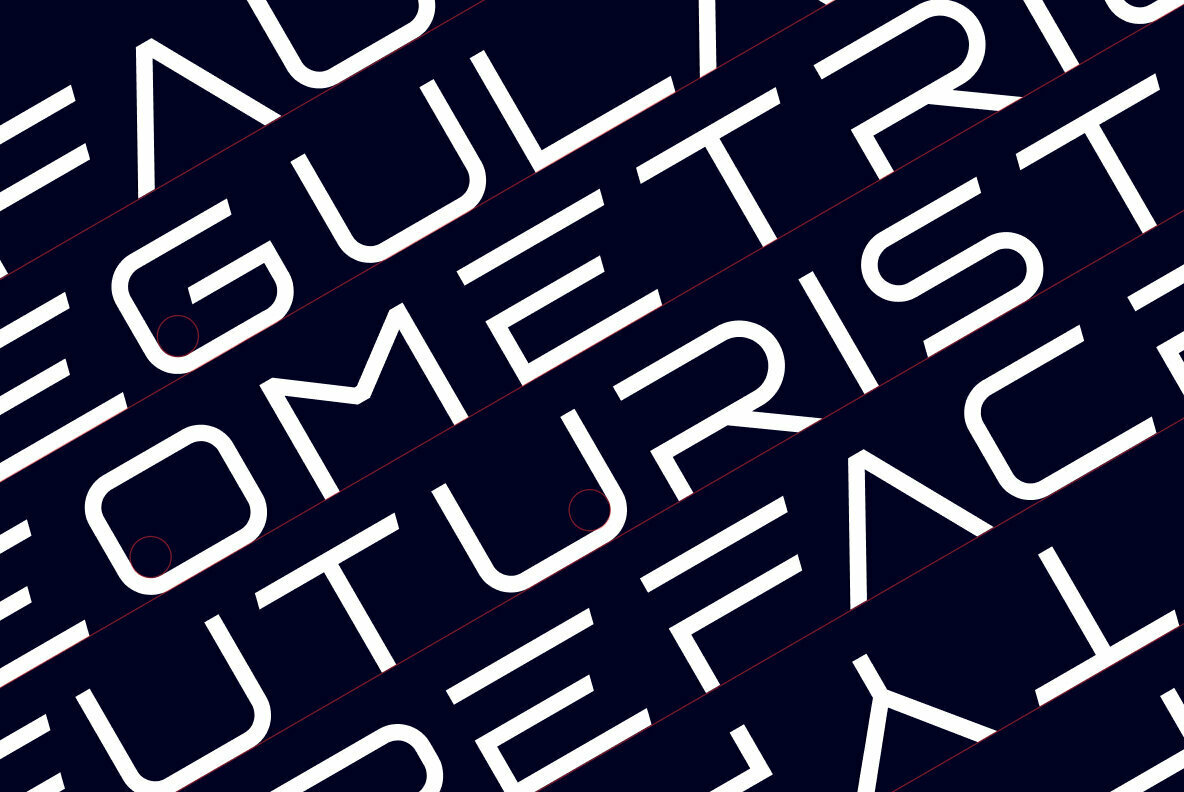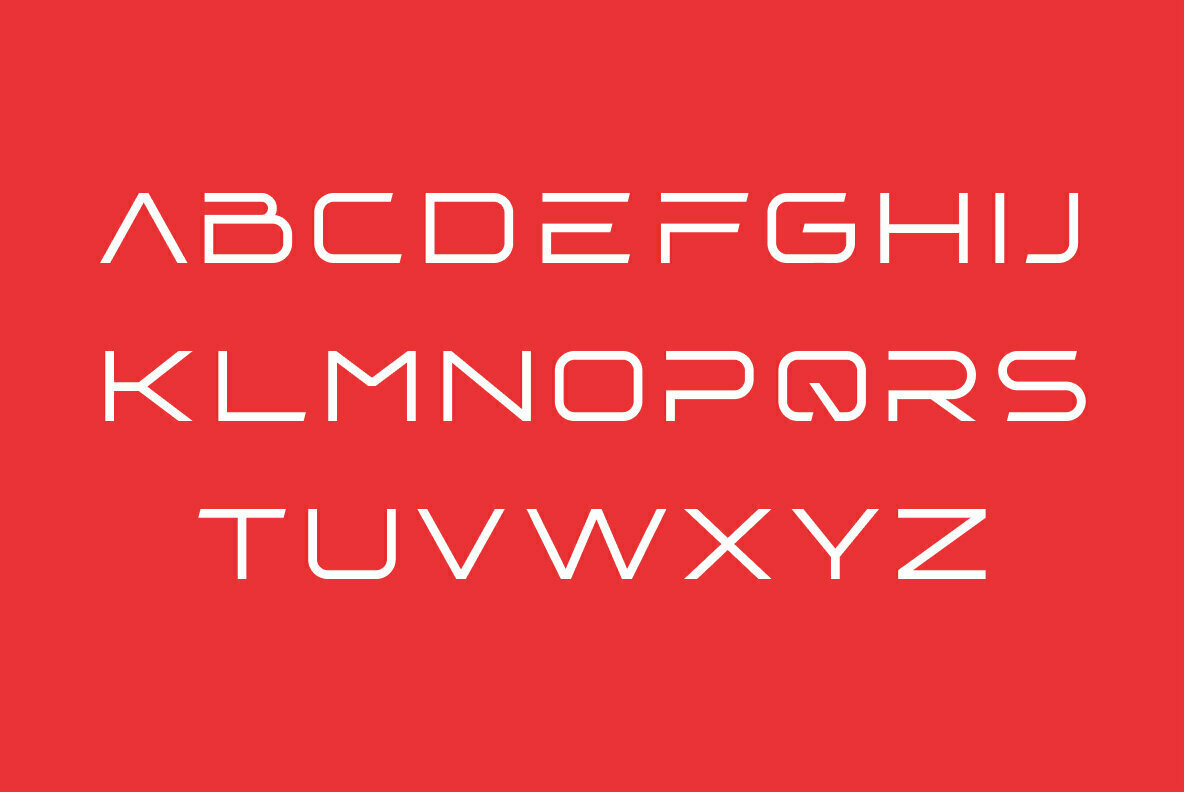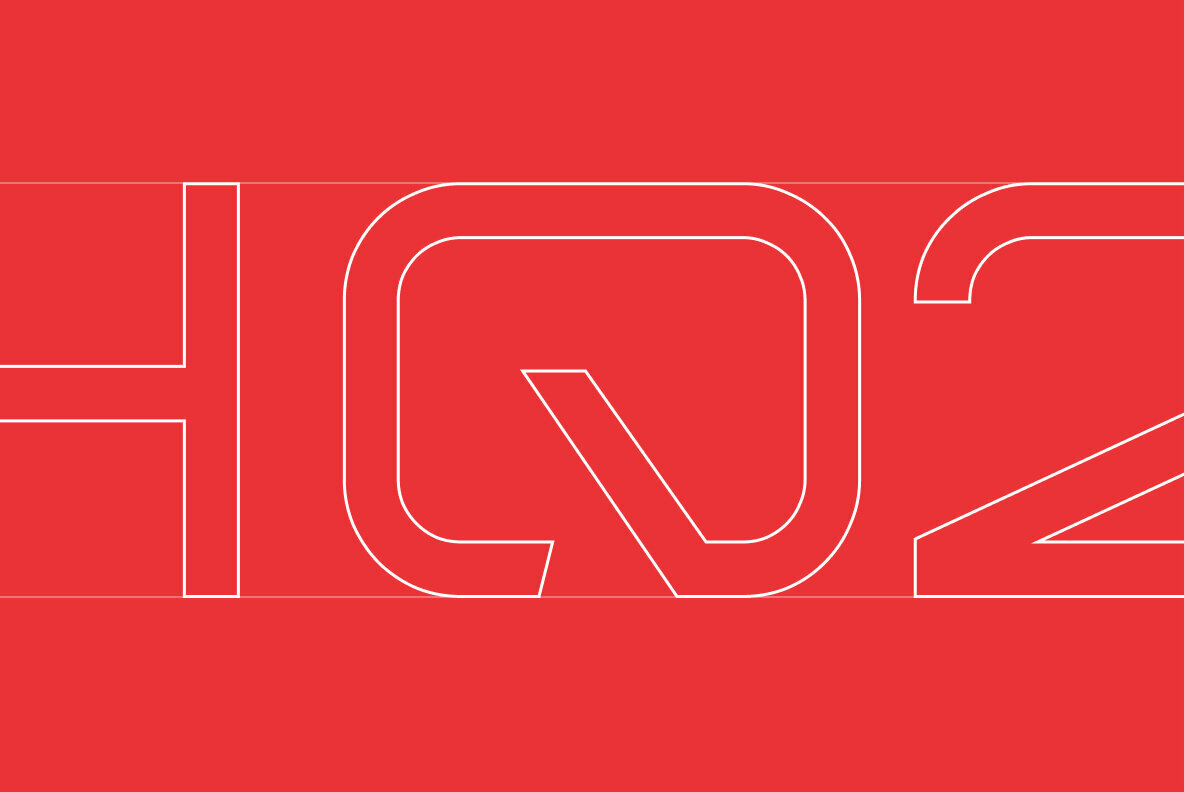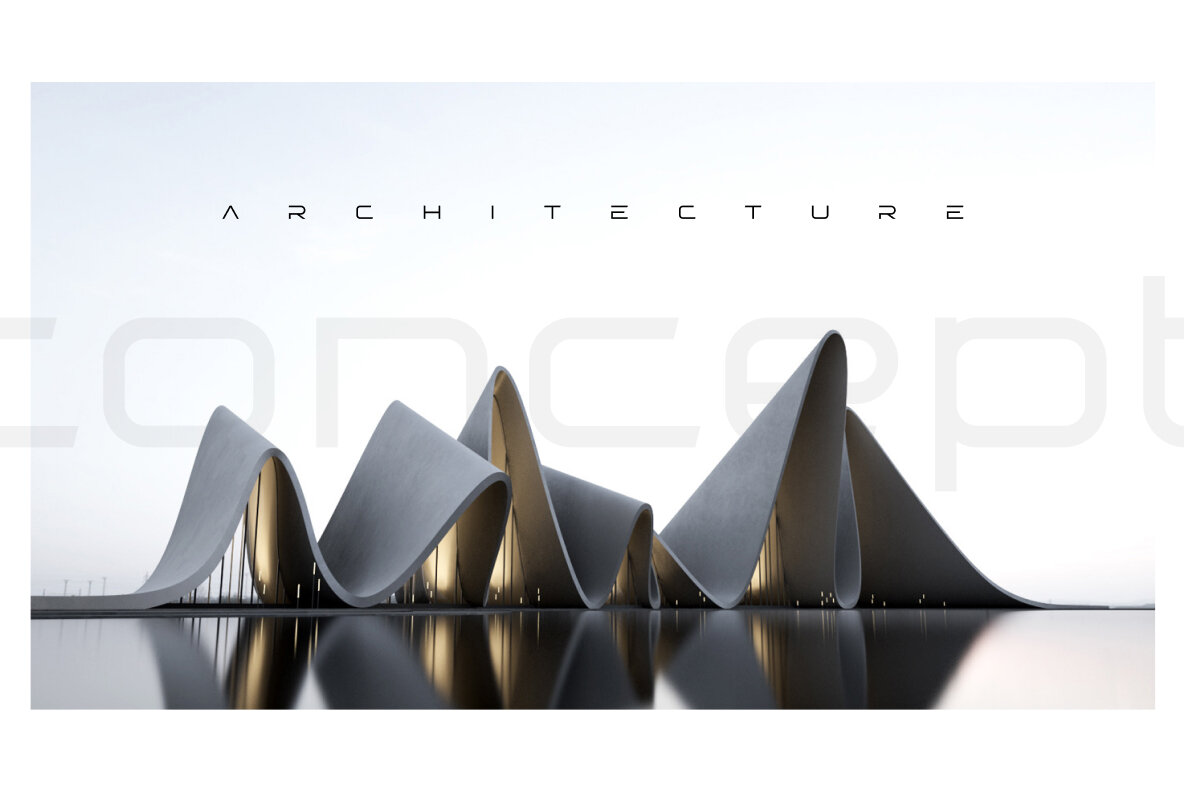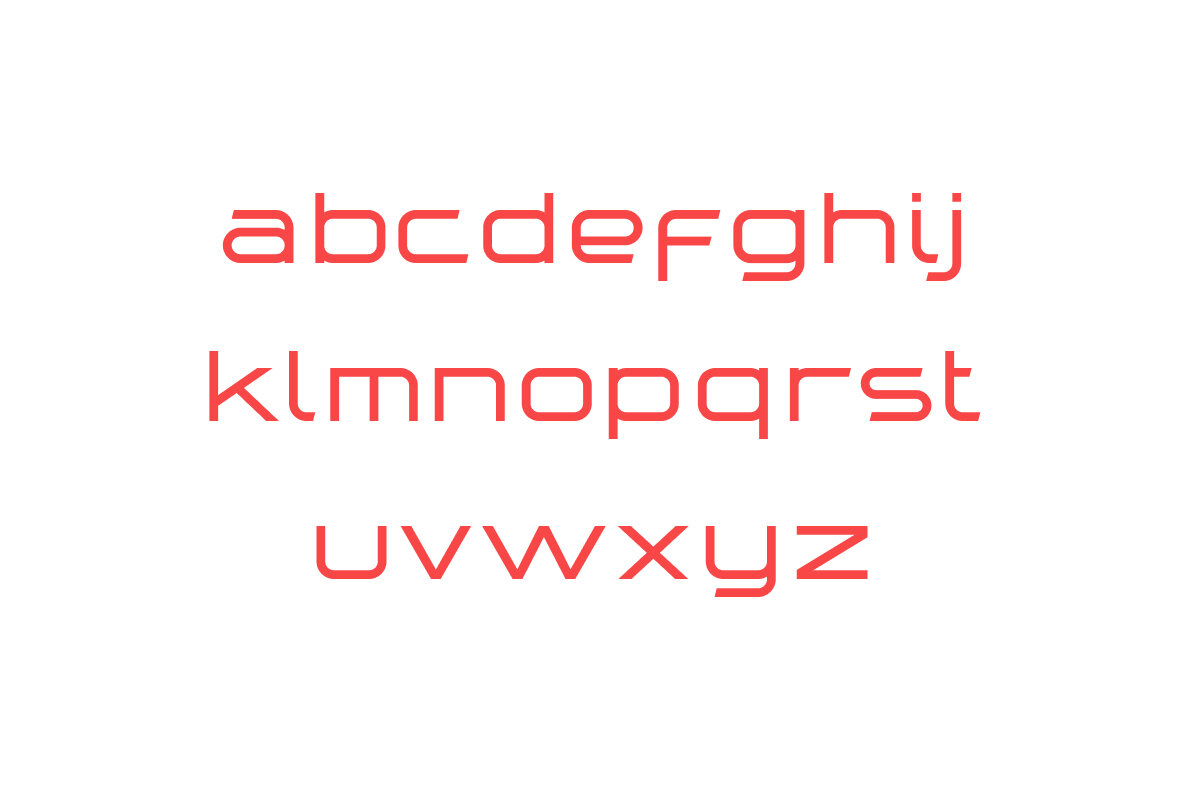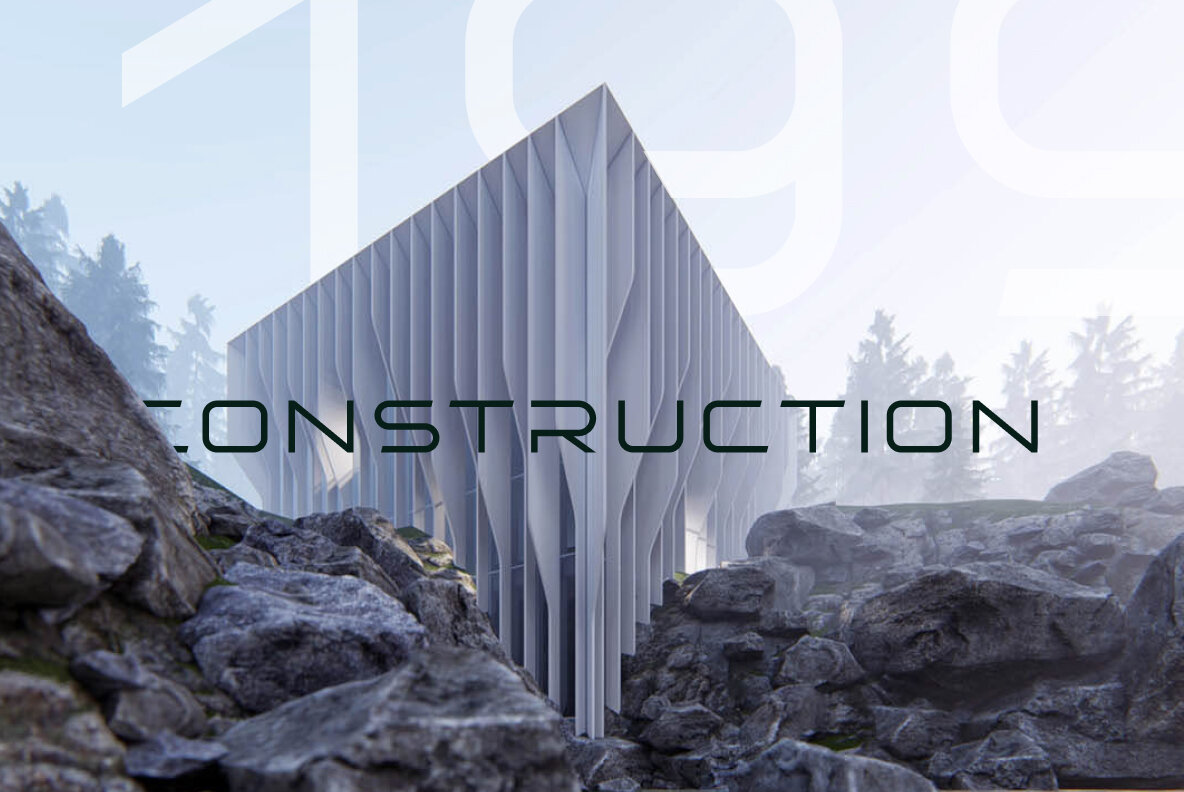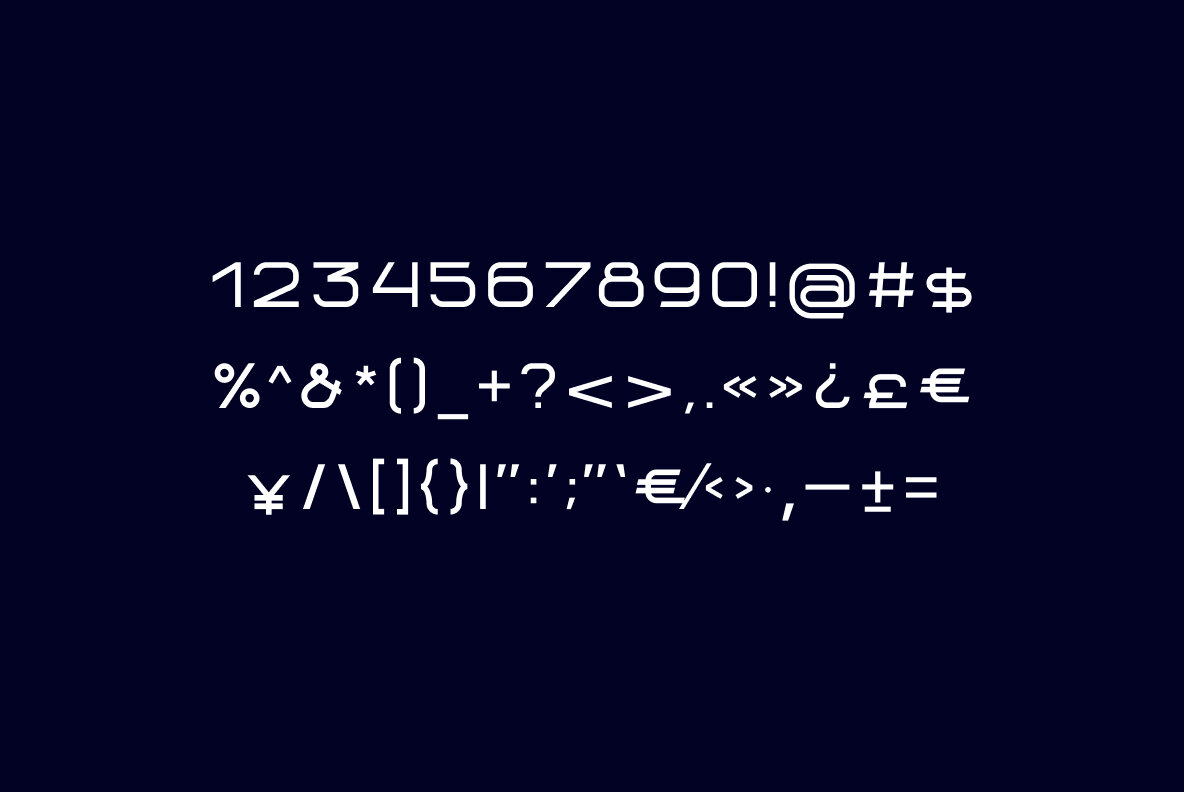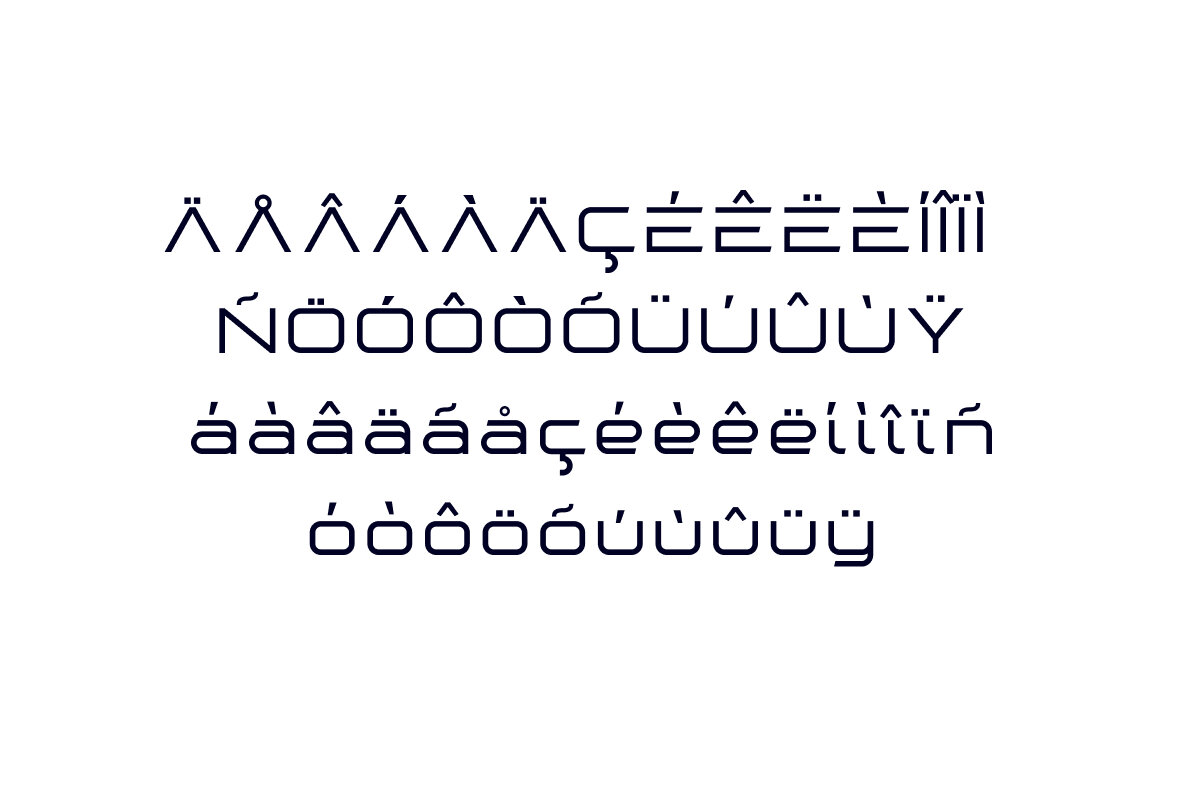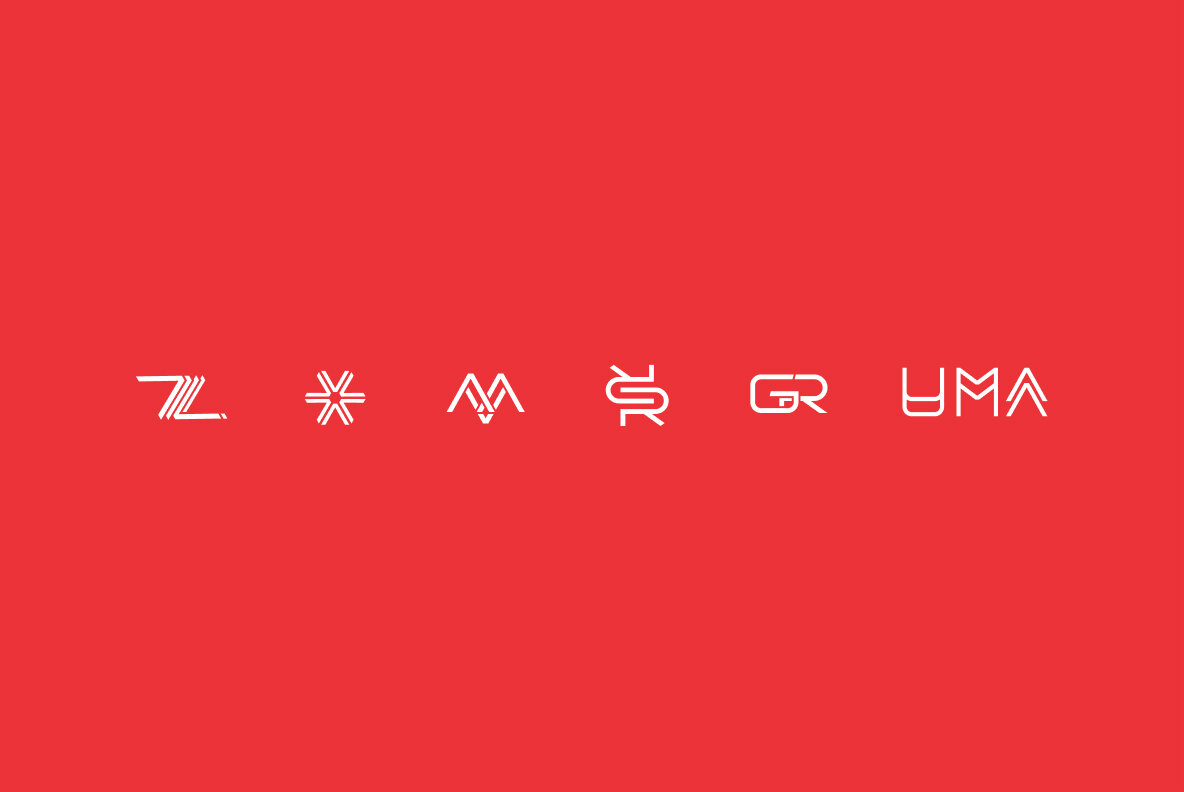
Fauna Font
Fauna is a stylish font inspired by hi-fi elements combined with square forms and straight lines. It also has the features of Constructivism, including solidity, emphasis on geometric shapes, and austerity. Bold futuristic characters make this font an ideal option for the development of a minimalistic and recognizable design, necessary for any modern project. It’s perfect for the creation of logos, titles, social media posts, posters, and ads. Due to the clear and eye-catching design of the characters, the font will surely attract your audience. It includes all basic symbols and characters. Plus, Fauna features proper kerning and supports several languages.